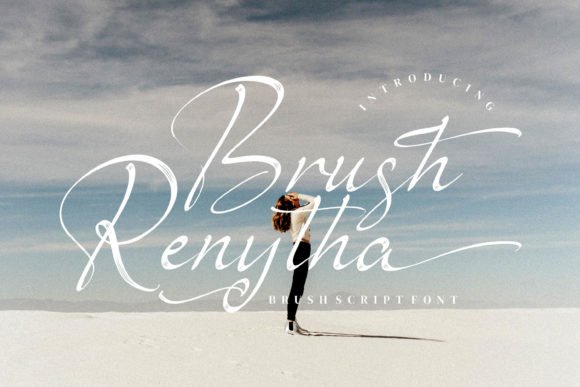
Enter the Brush Renytha Font, a masterfully designed handwritten font that’s poised to become a true favorite among designers. With its classy calligraphic influences and fresh, contemporary feel, this font is the perfect addition to any project looking to add a touch of elegance and sophistication.
With its PUA encoding, accessing all the glyphs and swashes is a breeze – making it a valuable tool for designers looking to add that extra special something to their work. Whether you’re working on a high-end brand identity or a personal creative project, the Brush Renytha Font is sure to impress.
Brush Renytha Font Key Features
- Font Family: Brush Renytha Font is a beautiful brush script font designed for various creative projects.
- Unique Characteristics: Brush Renytha Font features a unique, hand-drawn design with subtle imperfections and texture, giving it a personal and artistic touch.
- Language Support: The font supports a wide range of languages, including Latin, Cyrillic, and Greek alphabets.
- Font Style: Brush Renytha Font comes in two styles: Regular and Italic, offering flexibility for different design applications.
Brush Renytha Font Review
Overall, I’m impressed with the Brush Renytha Font. It’s a beautiful, elegant script font that adds a touch of sophistication to any design. Here are some things that really stand out:
- ✨ Unique and stylish: The font’s distinctive style sets it apart from more common script fonts.
- ✨ Great for creative projects: Its expressive and flowing lines make it perfect for projects like invitations, wedding cards, and other stationery.
- ✨ Highly customizable: The font offers a wide range of OpenType features and stylistic sets, allowing for endless possibilities in terms of customization.
- ⚠️ Limited legibility: At smaller font sizes, the font can become difficult to read due to its complex letterforms.
- ⚠️ Not ideal for body text: While the font is great for headlines and titles, it’s not the best choice for large blocks of body text due to its ornate nature.
Overall, I’d say that Brush Renytha Font is a great choice for designers looking to add some flair to their projects. While it may not be suitable for every project, it’s definitely a valuable addition to any font collection.
The Brush Renytha Font is ideal for creating unique and eye-catching designs for various purposes, including:
- Invitations and party decorations
- Graphic novels and comic books
- Handmade crafts and DIY projects